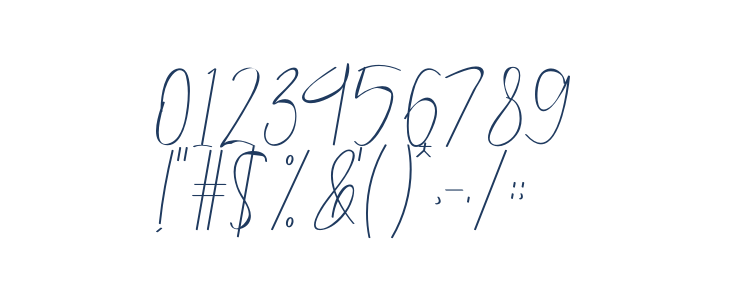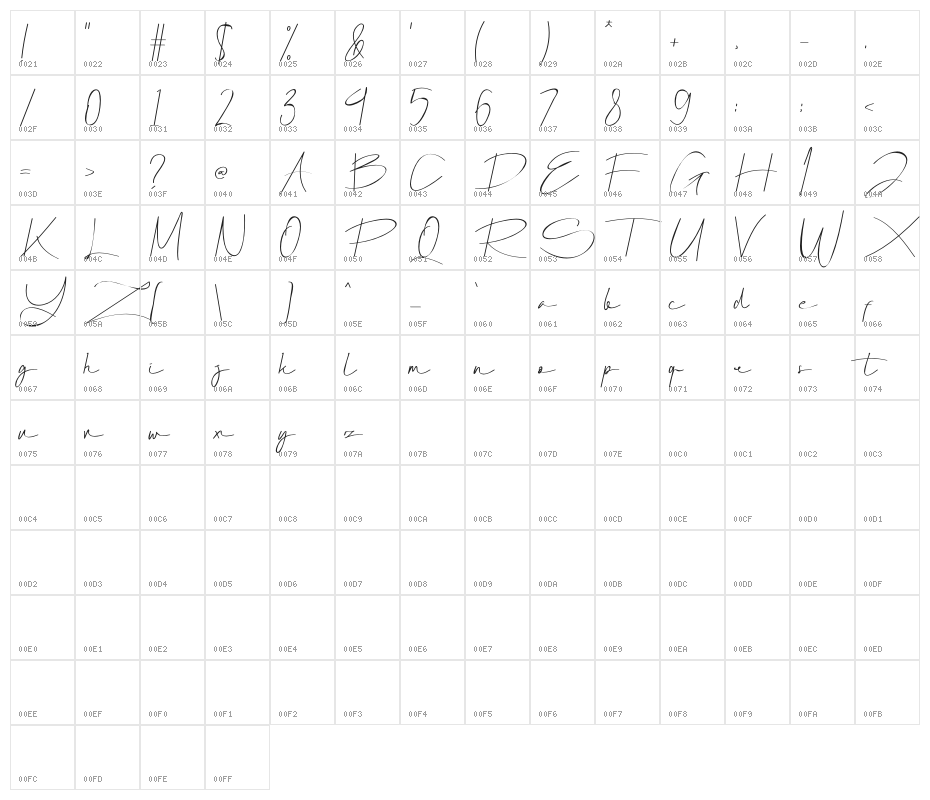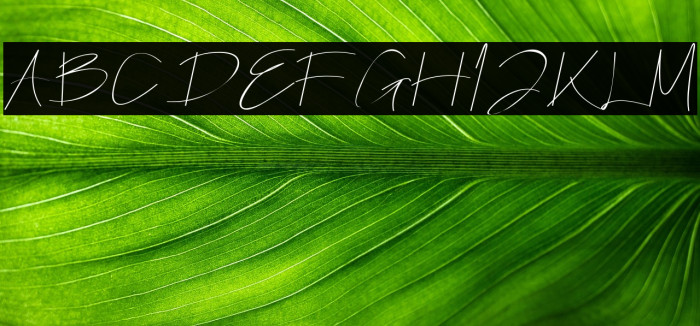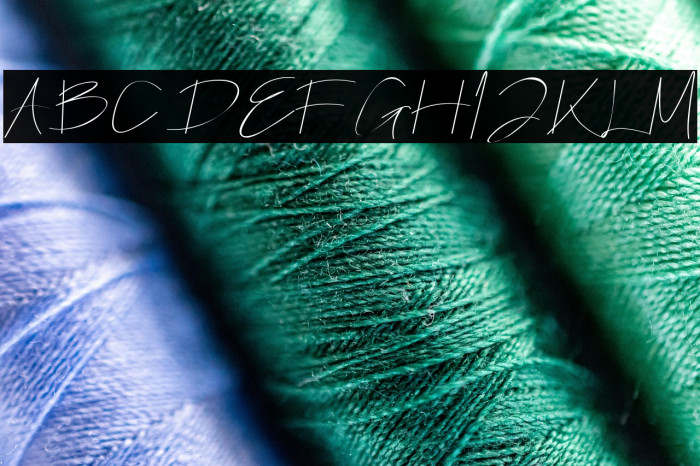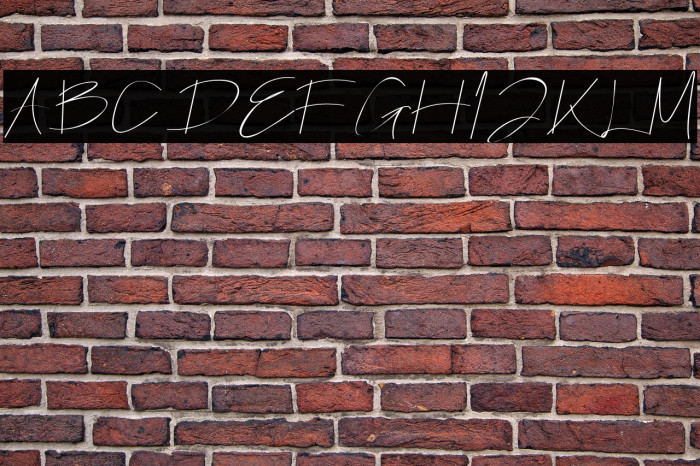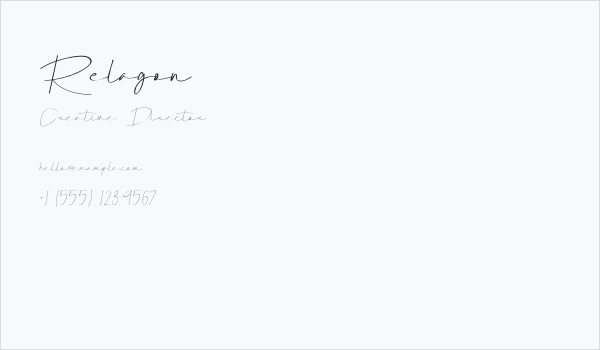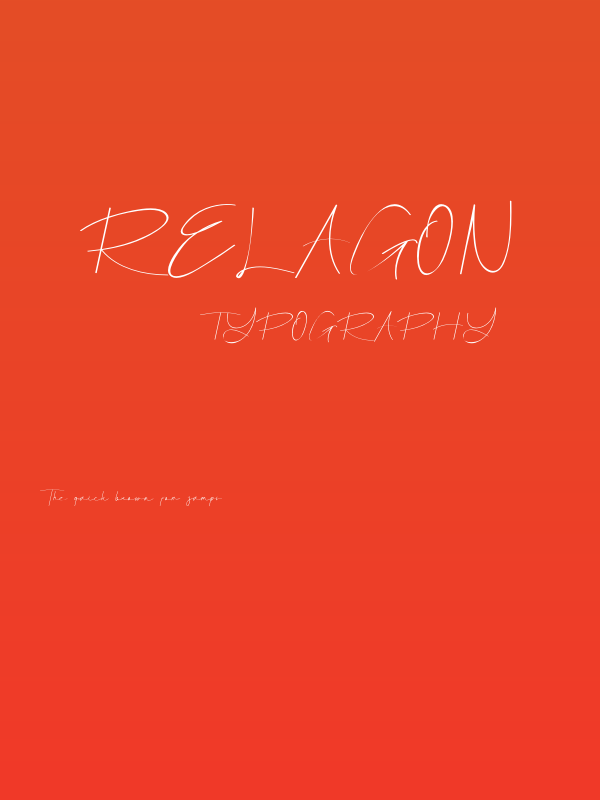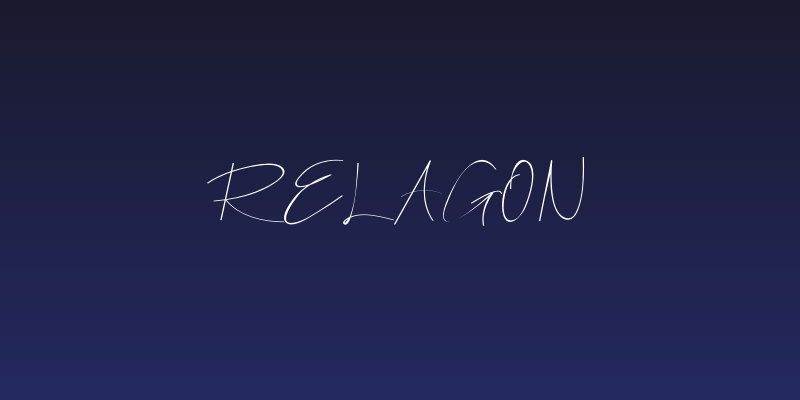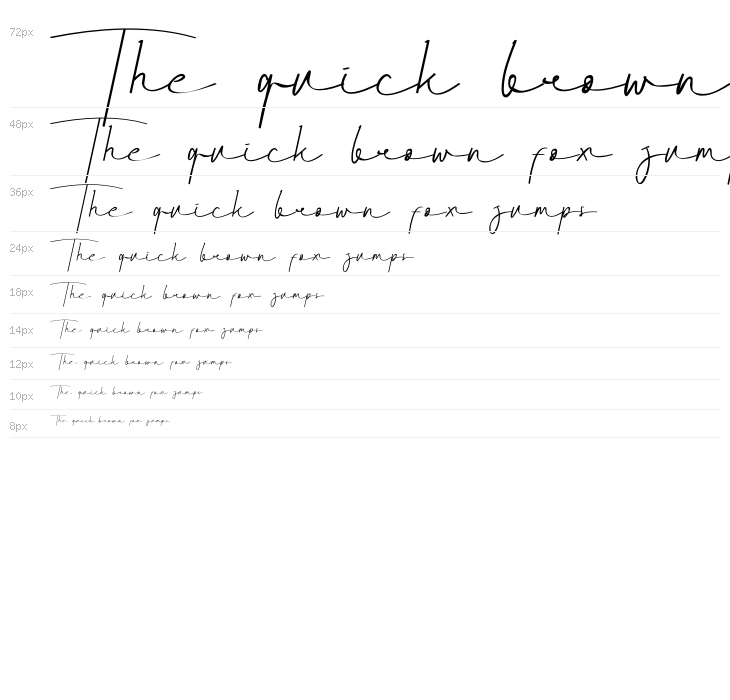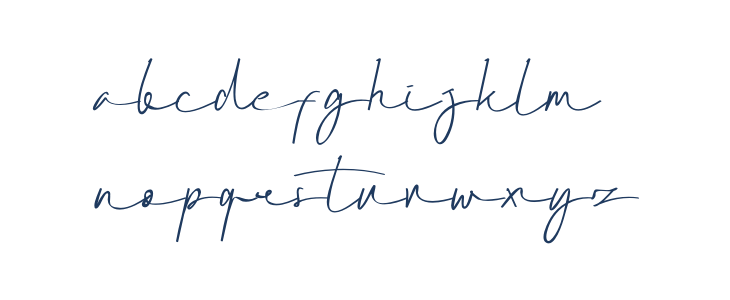
Relagon Font
Relagon Description
This font features a delicate and flowing script style, characterized by its elegant and fluid strokes. The letters are connected in a cursive manner, giving it a handwritten appearance. The uppercase letters are slightly more structured, while the lowercase letters exhibit a more relaxed and freeform style. The numerals maintain the same fluidity, ensuring consistency across all characters. Special characters are integrated seamlessly, maintaining the overall aesthetic. This font exudes a sense of sophistication and grace, making it suitable for projects that require a personal and artistic touch.
| Overall Style | Elegant, Artistic |
| Use Case | Logos, Invitations, Artistic projects |
| Proposed Projects | Ideal for wedding invitations, greeting cards, personal branding, and artistic projects. |